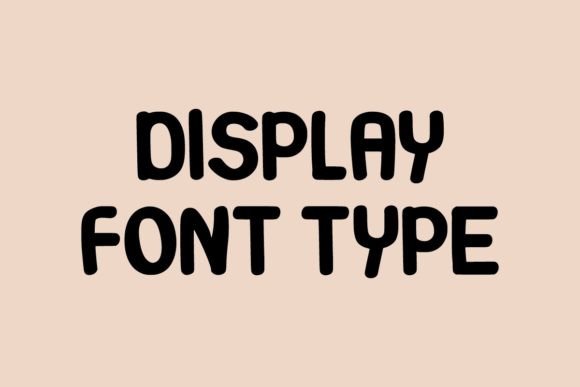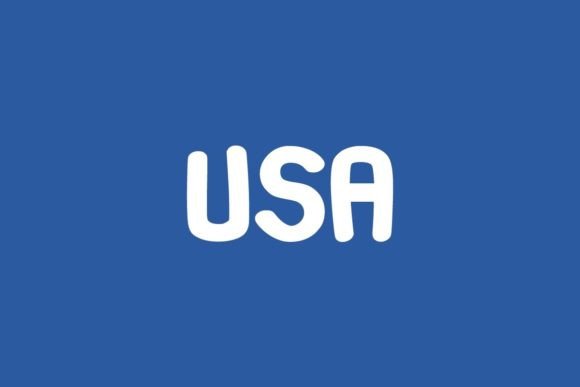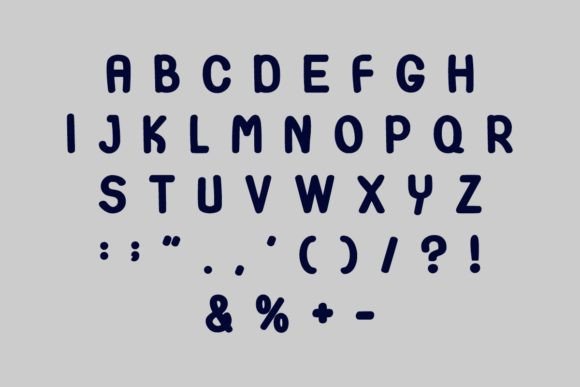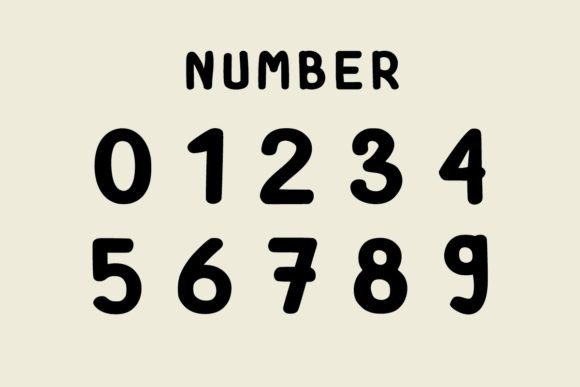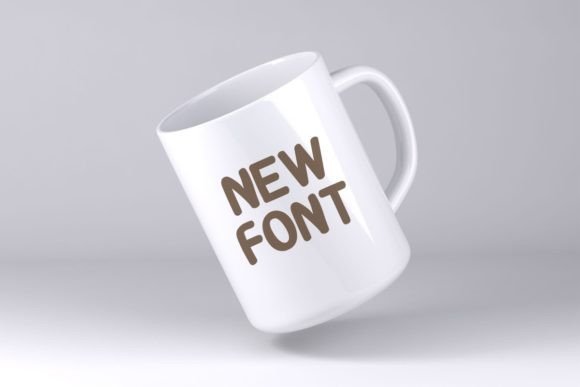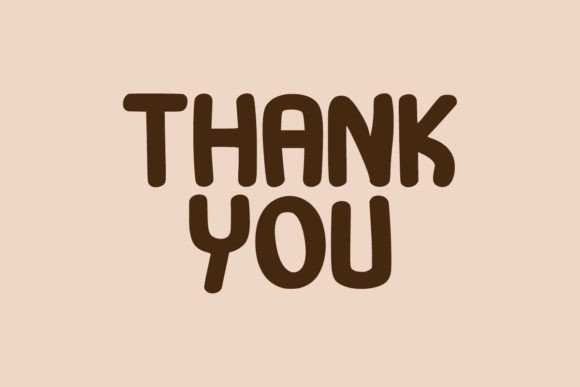
The Ultimate Display Font for Creatives: A Deep Dive into Cooker Font
An Honest Review of Cooker Font
- ✨ **Impeccable friendliness**: Cooker Font exudes warmth and approachability, making it perfect for designs that need a personal touch.
- ✅ **Easy to read**: The bold, clean design ensures that your message is conveyed clearly, even at smaller font sizes.
- 💡 **Versatility**: Whether you’re working on crafts, digital design, presentations, or greeting cards, Cooker Font is an excellent choice.
While Cooker Font is an excellent choice for many projects, there are a few things to keep in mind:
- 🤔 **Limited use in body text**: Due to its bold design, Cooker Font may not be the best choice for lengthy body text. Instead, use it for headings or titles.
The Backstory Behind Cooker Font
Cooker Font was designed with the goal of creating a friendly, approachable font that would be perfect for a wide range of creative projects. The designer wanted to create a font that would convey warmth and personality, without sacrificing readability. The result is a stunning uppercase font that is both bold and inviting.
Q: What is Cooker Font best used for?
Cooker Font is an excellent choice for designs that require a bold, yet friendly font. It’s perfect for crafts, digital design, presentations, greeting cards, and more.
Q: Is Cooker Font suitable for body text?
While Cooker Font is an excellent choice for headings and titles, it may not be the best choice for lengthy body text due to its bold design.